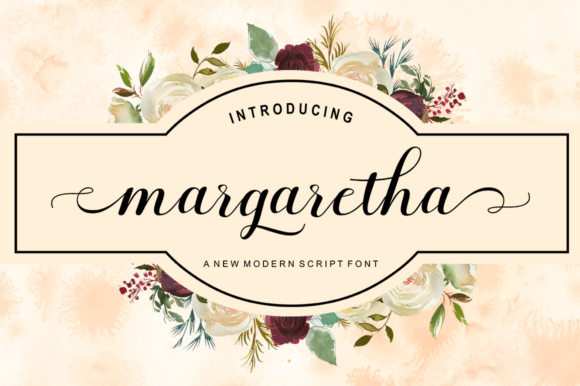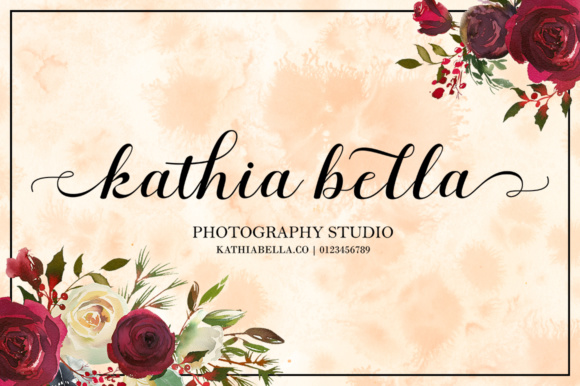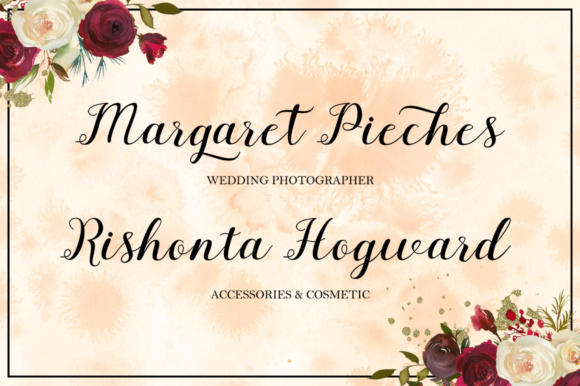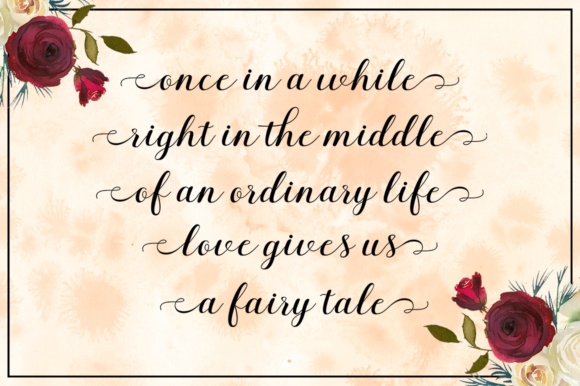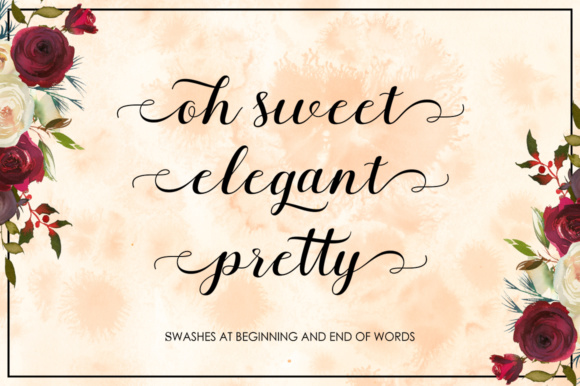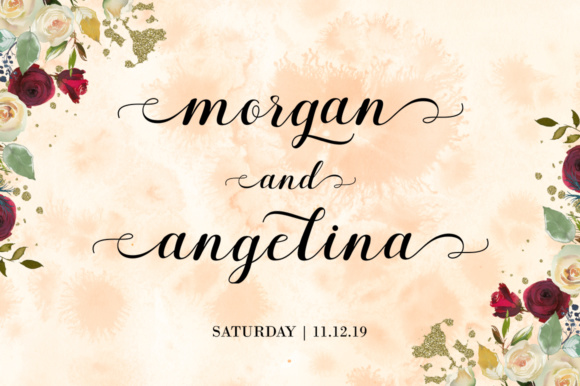
Margaretha Font
About Margaretha Font
Margaretha is a gorgeous handwritten font, perfect for use in a wide range of creative projects. This script has a romantic feel to it, and comes with stylistic alternates so you can create designs with tons of impact and style.